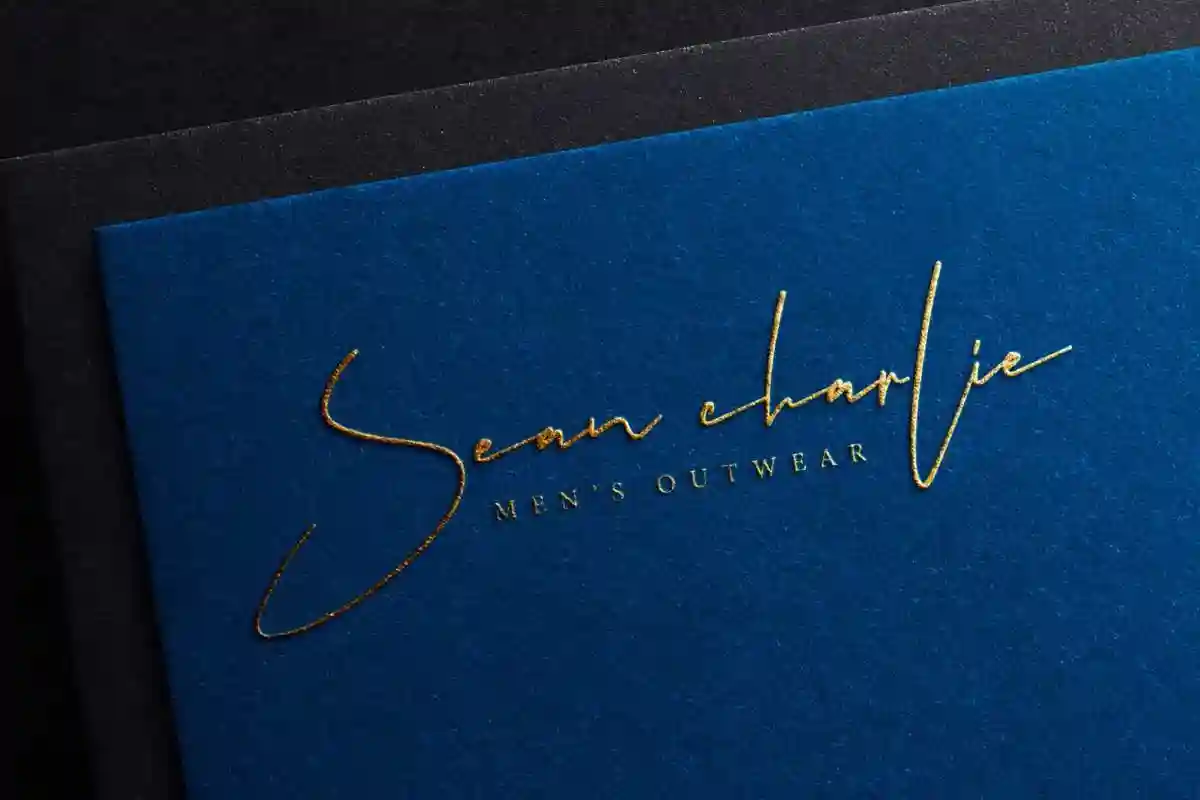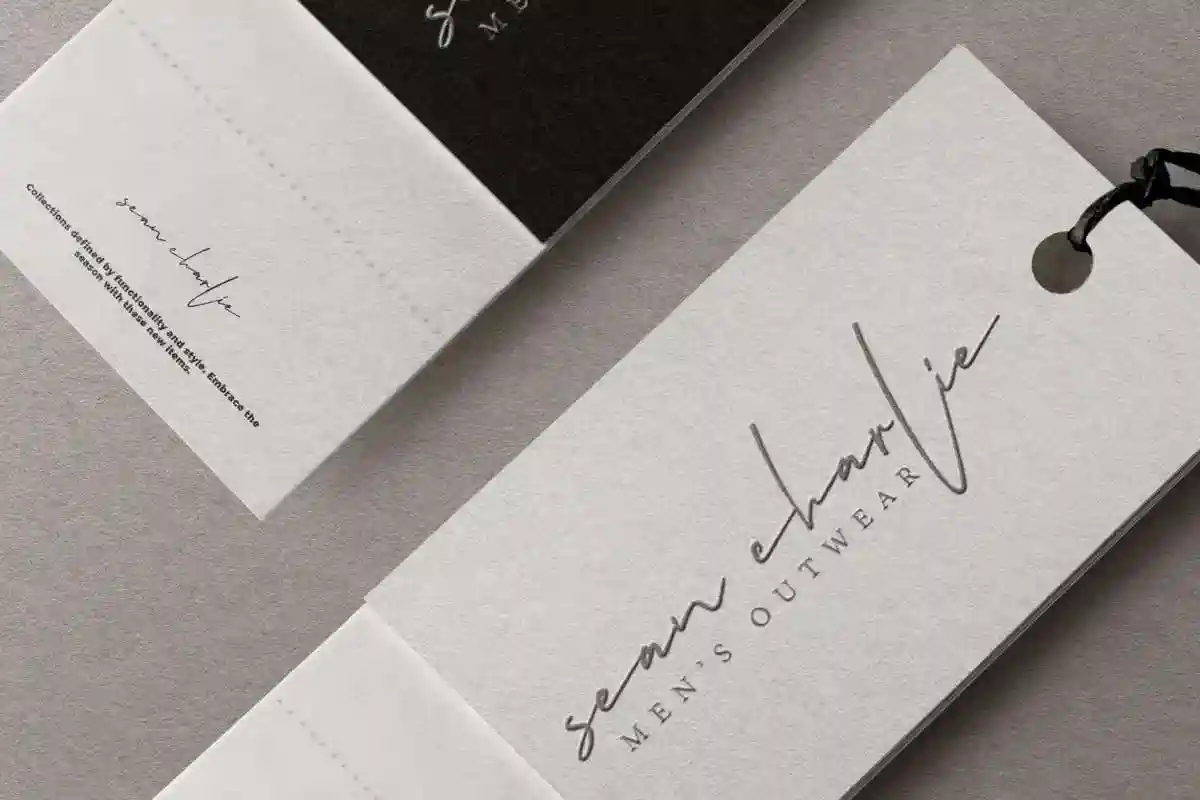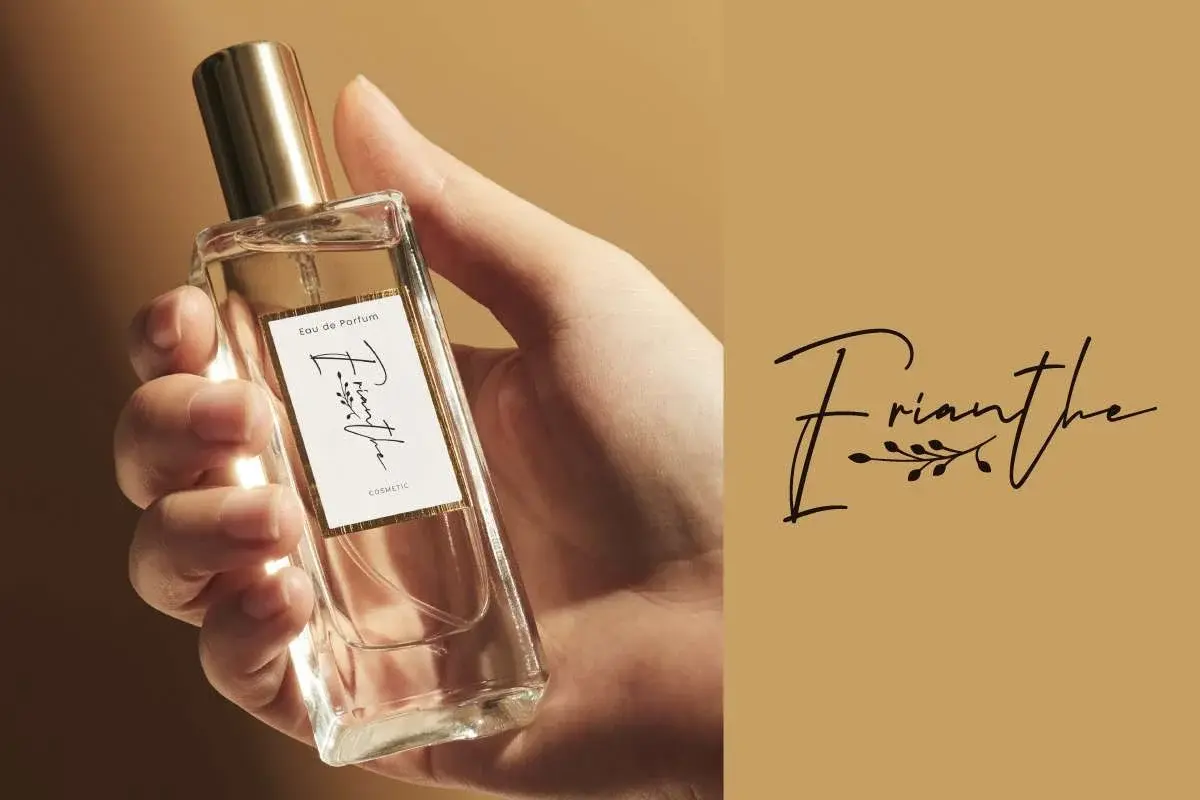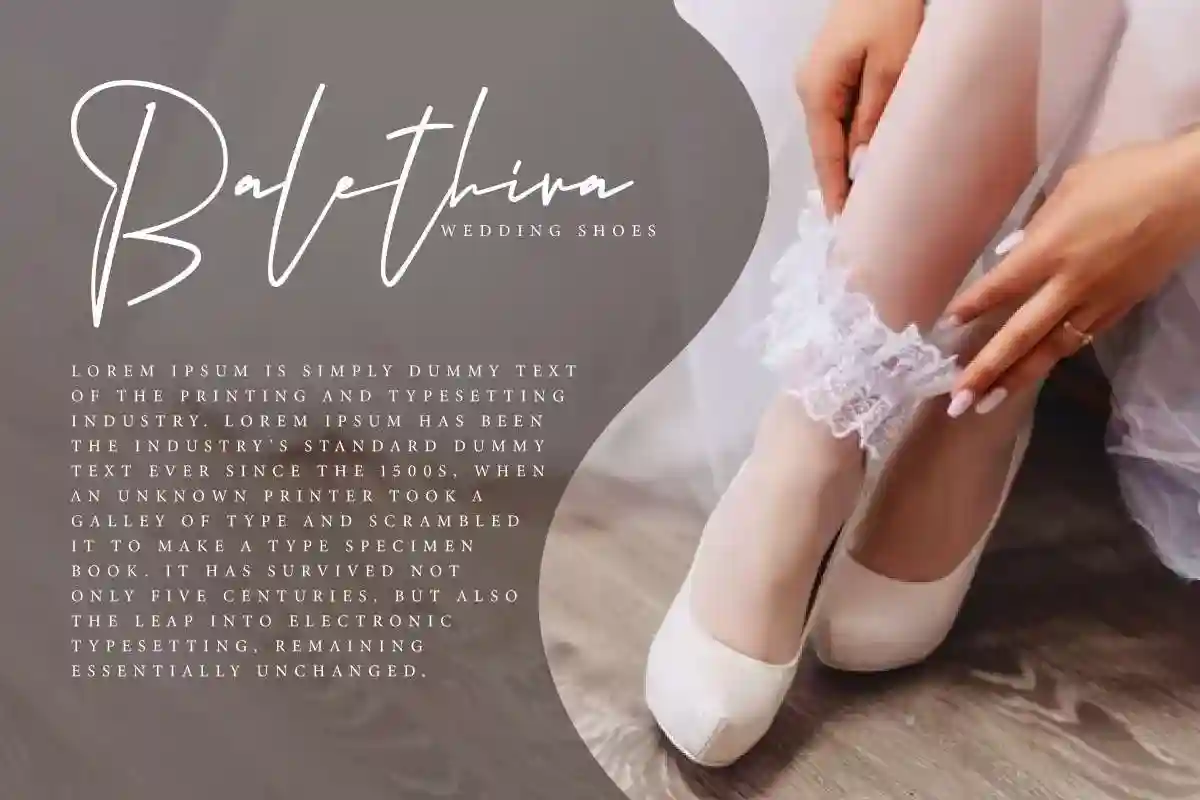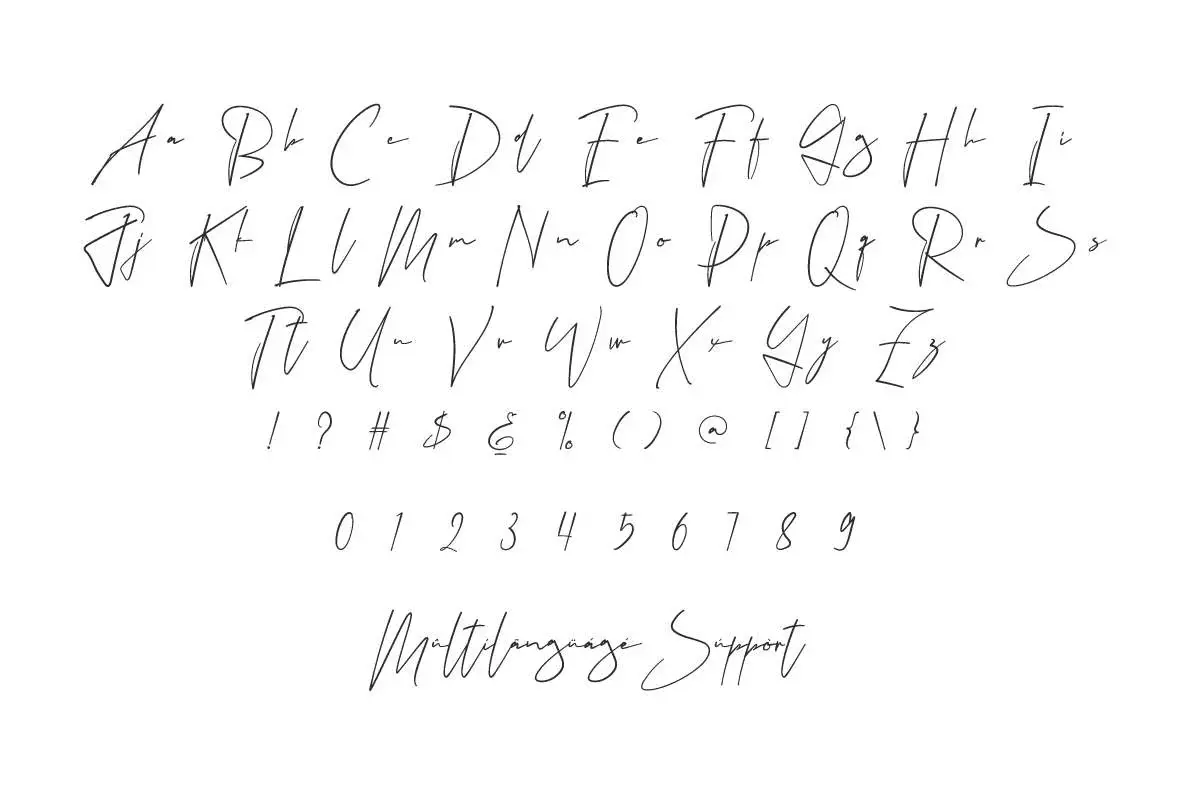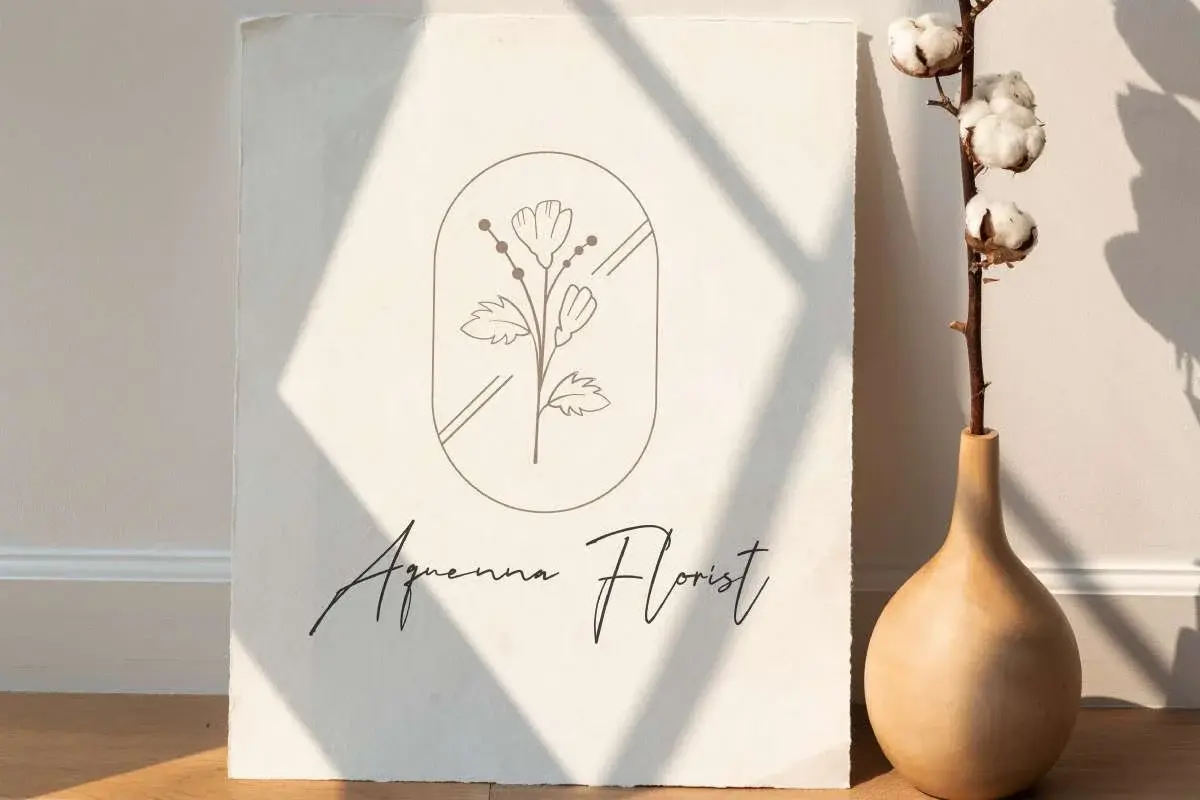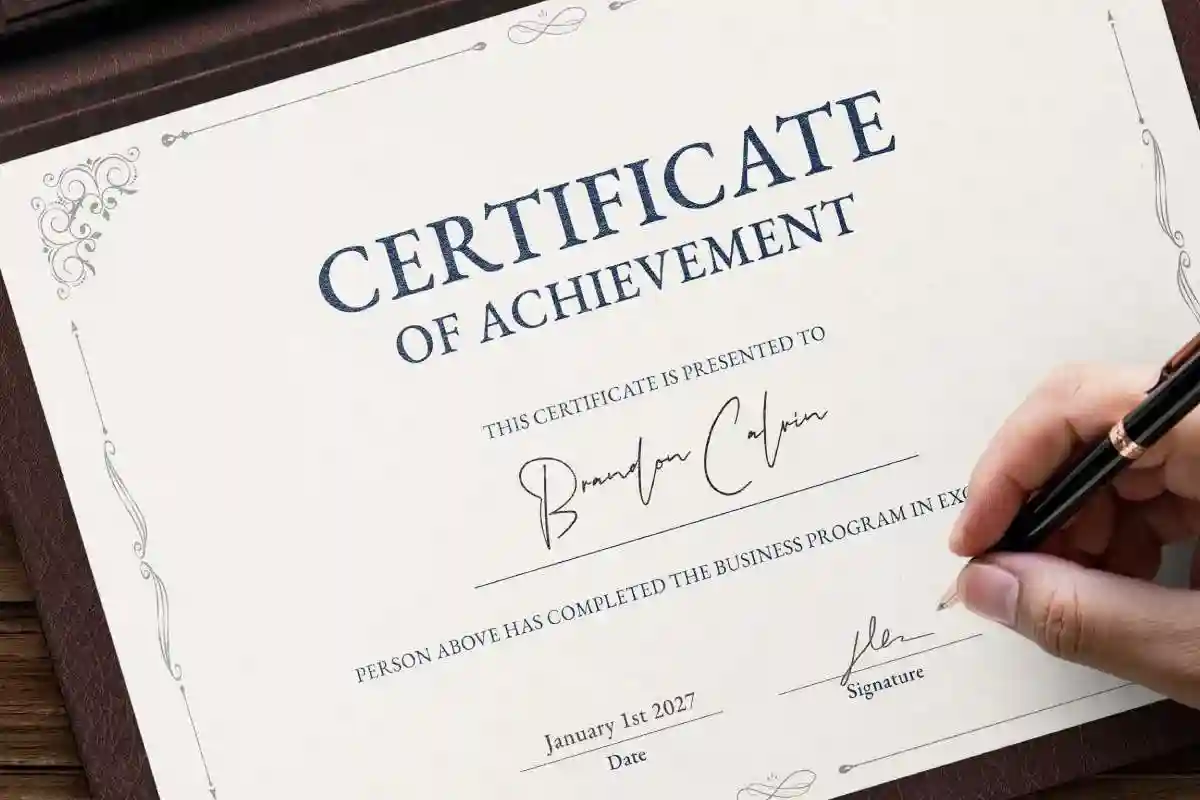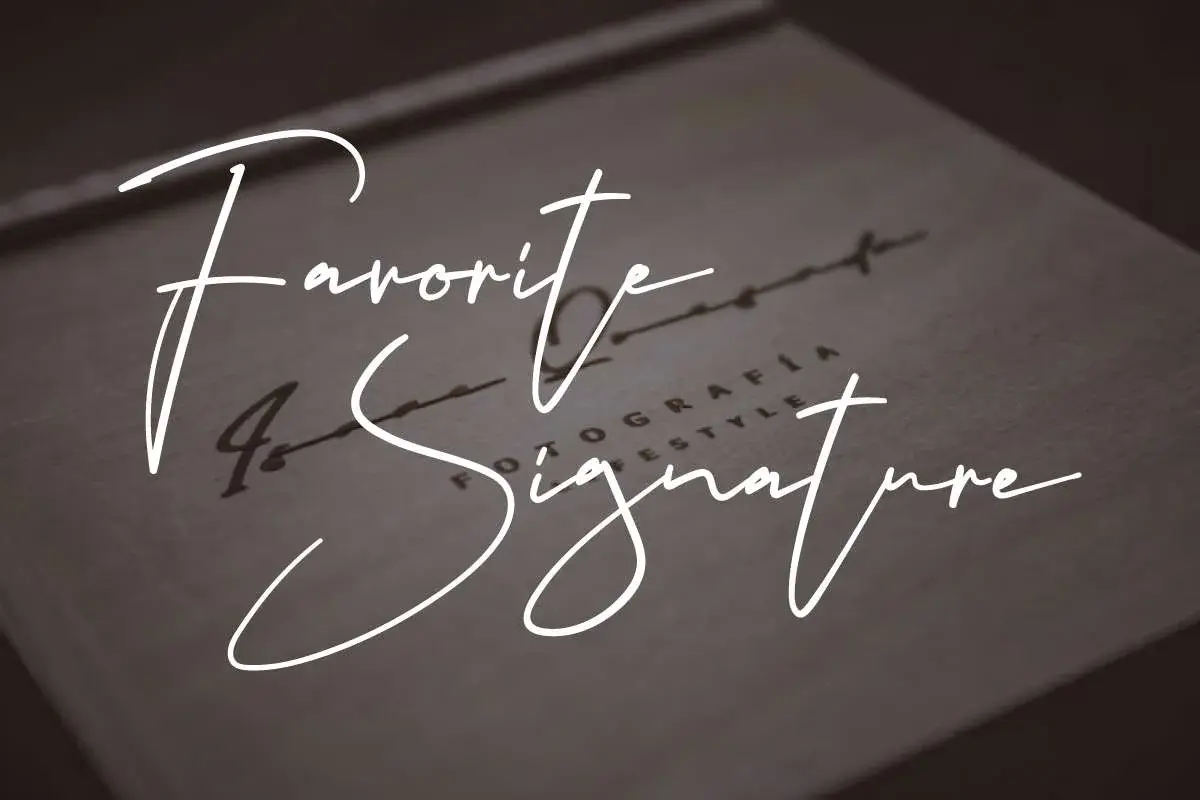
Favorite Signature Font is a beautiful handwritten font with simplicity that doesn’t diminish its artistic value. It’s suitable for fashion product logos, social media posts, or whatever.
Favorite Signature Font is a chic handwritten font with a signature style. This typeface has the look of a thin monoline brush, keeping it neat and simple. It will attract and enhance your project, such as brand logo, brochure, business card, catalog, certificate, cover, embossed design, invitation, greeting cards, label, mockup, price tag, screen print, signage, signature, stationery, sticker, title, watermark, website, and many more!
Favorite Signature Font comes with a full set of Uppercase and Lowercase Basic Characters, Number, Punctuation, Symbol. Use it for your business industry which requires an aesthetic appearance, such as accessories, architect, ballet, boutique, event organizer, fashion, florist, furniture, handicrafts, lifestyle, perfumer, photographer, printing, publishing, real estate, restaurant, skincare, spa salon, wedding, writer, etc.